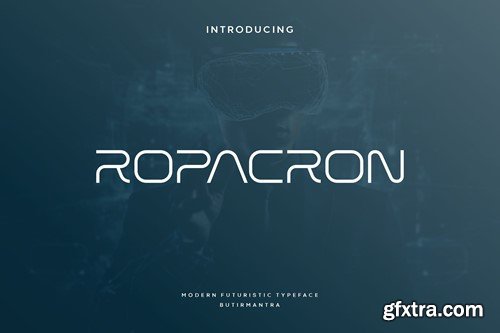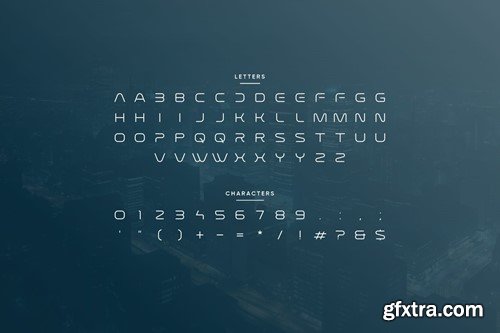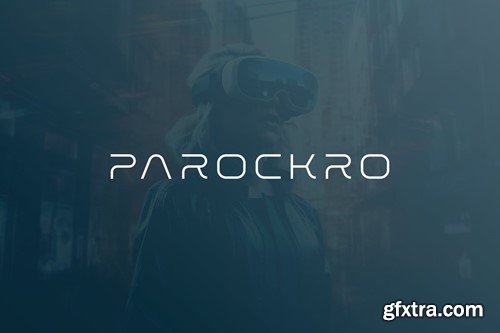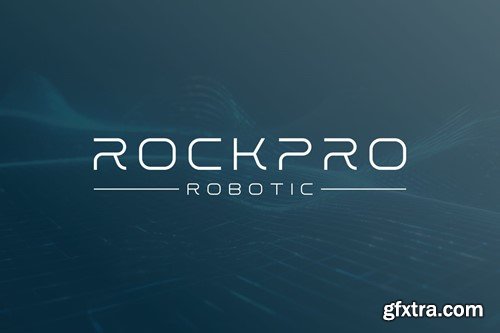
Ropacron - 现代 cyber 字体 W6CU9VX
Ropacron - Modern Cyber Font
Ropacron is a cool and futuristic display font with an all cap style, coming with a high tech theme. This font would be ideal for writing titles, web designs, logo, branding, business cards, or just about anything else that requires a unique and modern touch. Ropacron has a thin and light shape that makes it look more dynamic and flexible, rounded corners make it look less stiff. File Included : Thanks for subscribe and good luck with your project!